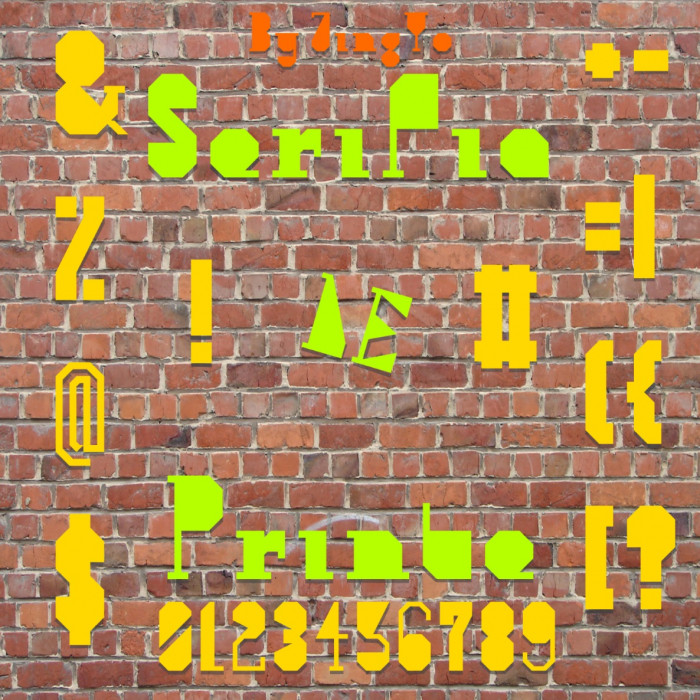
Nice art deco-ish entry jingyo. And u're right, doesn't sound very French.. more like a poor mixed up imitation of Spanish/Italian. :P
French would've be something like "Imprimé le Sérif"
le sample
i accidentally typed "le"